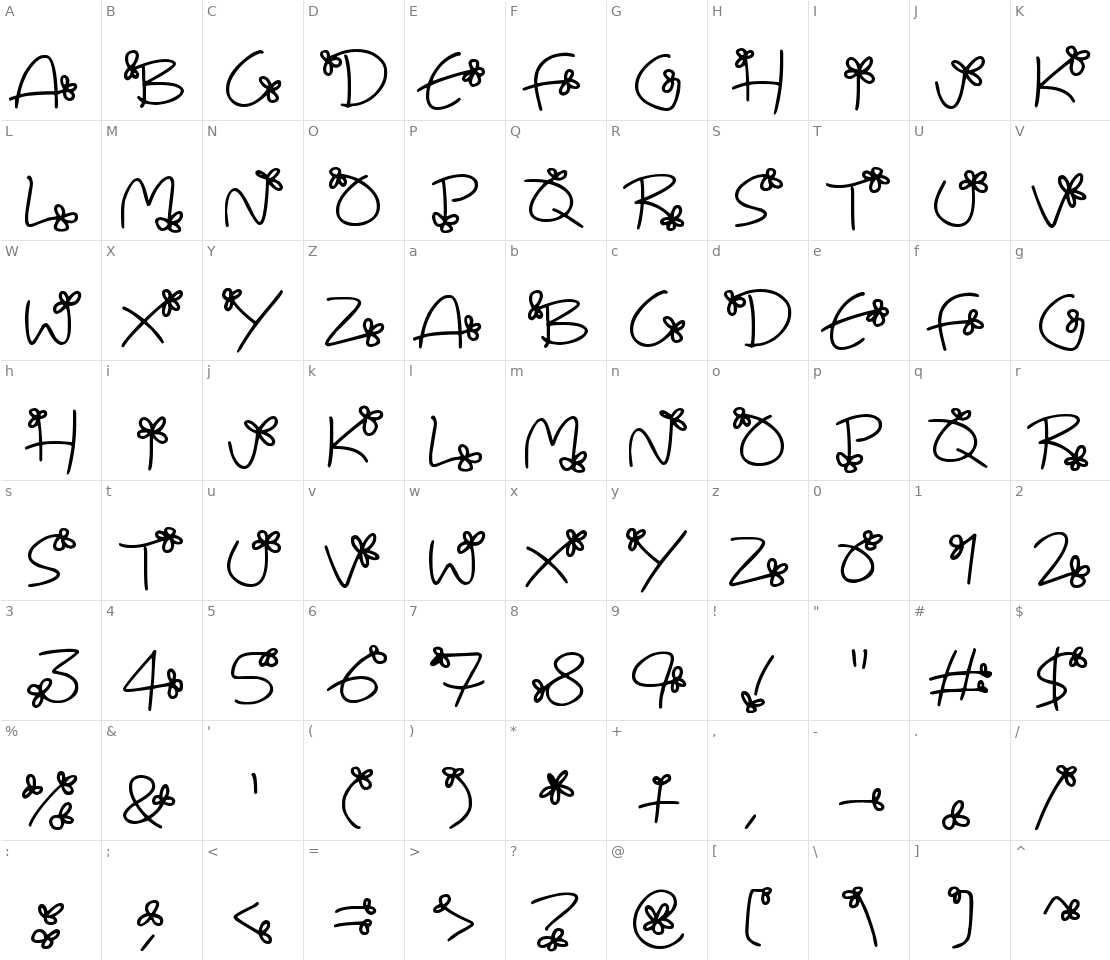
Flowing Flowers
by Darrell Flood
Flowing Flowers is a thin, whimsical handwritten face from Darrell Flood with delicate floral embellishments woven into the letterforms, giving each character a doodled, garden-sketchbook quality. The strokes are light and casual, with a distinctly feminine energy that works well for invitations, greeting cards, and decorative headlines. It's purely a display face, best kept to short text where the floral detail won't collapse into noise.